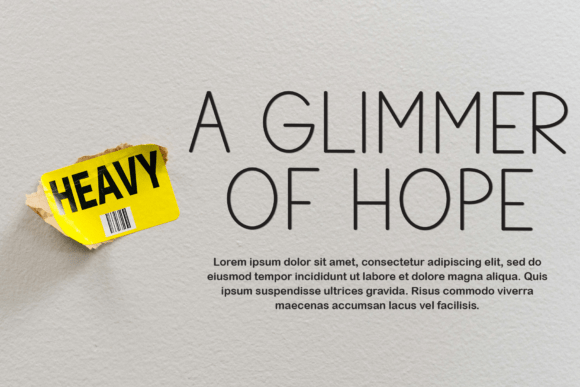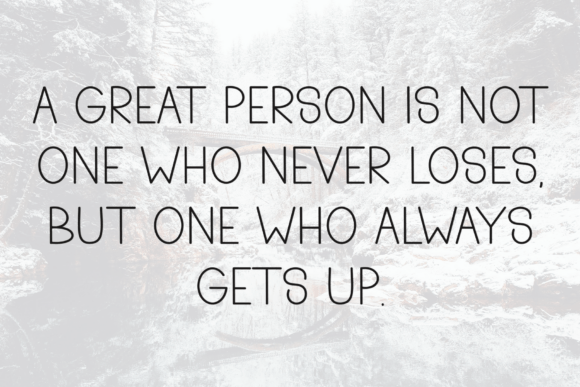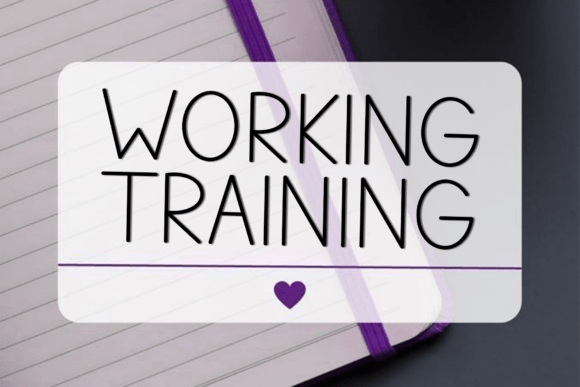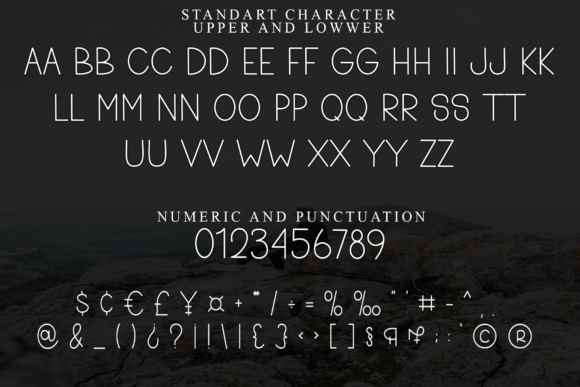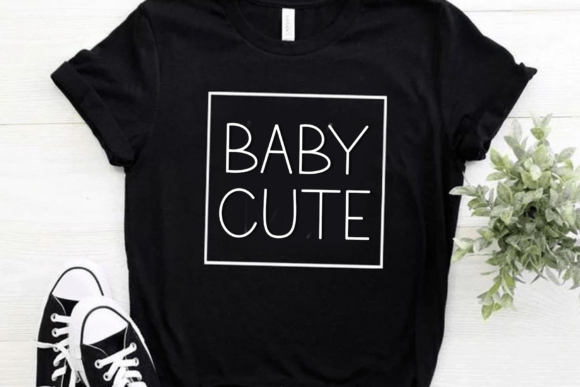
Cinnamon Font: A Festive and Merry Typeface for the Holiday Season
The holiday season is upon us, and with it comes the desire to create festive and merry designs that capture the spirit of the season. For designers and crafters, finding the perfect font to convey the magic of the holidays can be a challenge. That’s where Cinnamon Font comes in – a decorative and whimsical typeface that’s perfect for adding a touch of enchantment to your designs.
The Charm of Cinnamon Font
Cinnamon Font is a beautifully crafted typeface that’s designed to evoke the nostalgia and cheer of the holiday season. With its decorative elements and whimsical flair, this font is sure to add a touch of magic to your designs. Whether you’re creating greeting cards, gift tags, or holiday-themed projects, Cinnamon Font is the perfect choice.
Cinnamon Font is specifically designed with the holiday season in mind. Its festive and merry design makes it perfect for a wide range of projects, including:
- Greeting cards: Create beautiful and festive greeting cards that will delight your friends and family.
- Gift tags: Add a personal touch to your gifts with custom gift tags featuring Cinnamon Font.
- Holiday-themed projects: From Christmas decorations to Halloween-themed designs, Cinnamon Font is the perfect choice for any holiday-themed project.
One of the best things about Cinnamon Font is that it’s PUA (Private Use Area) encoded. This means that you can access all of the amazing glyphs and ligatures with ease, giving you even more creative freedom to create stunning designs. With PUA encoding, you can:
- Easily access alternate characters and glyphs.
- Create beautiful ligatures and swashes.
- Use the font with ease in your favorite design software.
Bringing a Cheerful and Nostalgic Ambiance to Your Words
Cinnamon Font is more than just a typeface – it’s an experience. With its cheerful and nostalgic design, it’s sure to bring a smile to the faces of those who see it. Whether you’re creating designs for personal use or for clients, Cinnamon Font is the perfect choice for adding a touch of warmth and personality to your words.
Tips for Using Cinnamon Font
To get the most out of Cinnamon Font, here are a few tips:
- Use it sparingly: Cinnamon Font is a decorative typeface, so it’s best to use it sparingly to add emphasis and interest to your designs.
- Pair it with other fonts: Cinnamon Font pairs well with a range of other fonts, so don’t be afraid to experiment with different combinations.
- Experiment with colors: Cinnamon Font looks great in a range of colors, from traditional holiday colors like red and green to more muted tones.